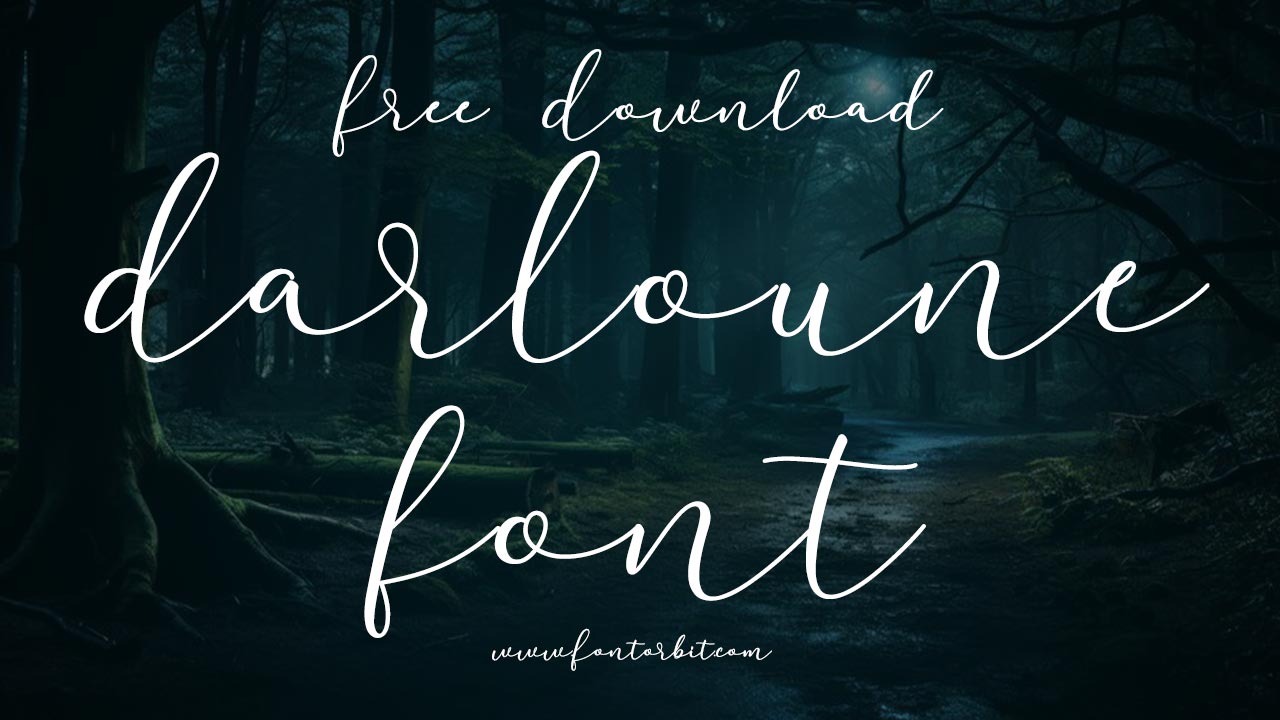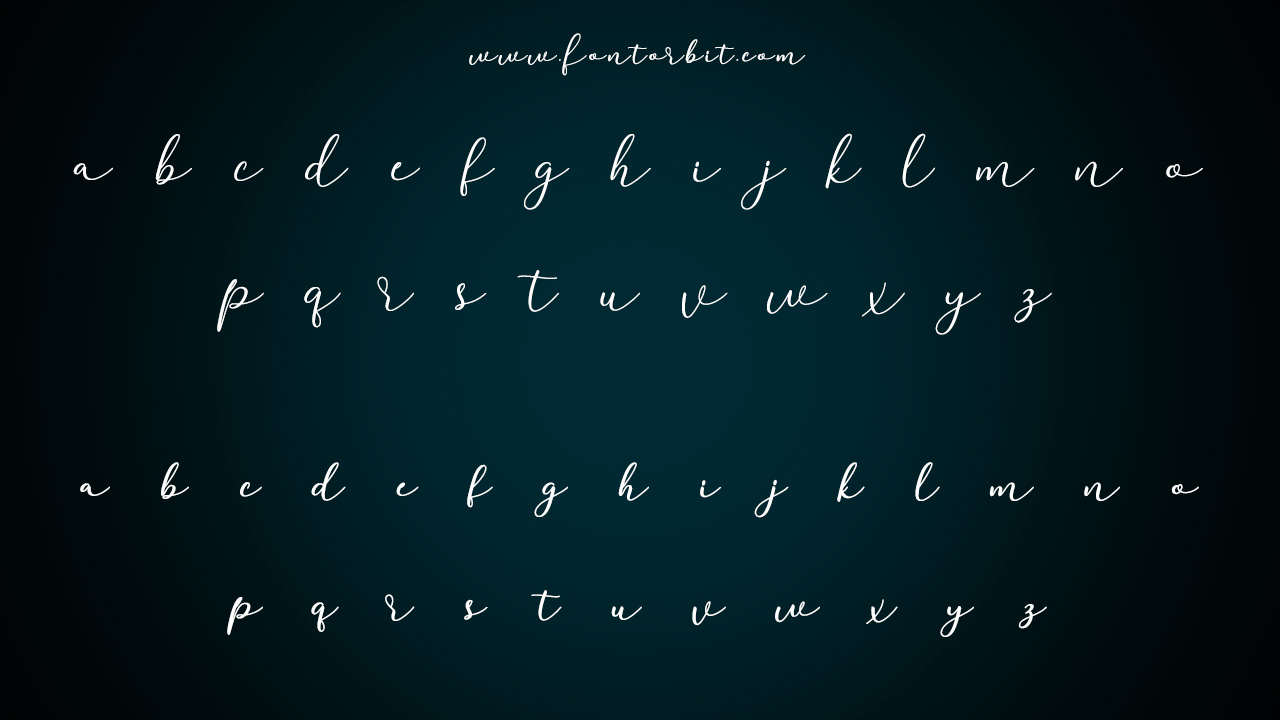
Darloune Font is an elegant and romantic handwritten typeface designed by the renowned WDfont studio. Released in 1998, this font has a light and flowing style that makes it perfect for sophisticated and artistic designs.
Darloune Font boasts a beautiful handwritten style with alternate characters, swashes, and stylistic sets, making it a versatile choice for creative projects. Its characters are designed to evoke an elegant, handwritten feel that works well in various applications.
a. Darloune Regular
| Style: | Calligraphy |
Darloune Font’s romantic and flowing style is perfect for designs that call for an elegant and personal touch. Its graceful appearance makes it ideal for a wide range of creative projects where sophistication and delicacy are desired.
Darloune Font is often used in settings where elegance and romance are key. Its intricate alternates and swashes add a refined and personalized feel to any design, making it a popular choice for designers looking to create an enchanting aesthetic.
Darloune Font brings a romantic and artistic feel to any design with its handwritten calligraphic style. While it does not replicate any specific historical script, it perfectly captures an intimate and delicate aesthetic.
Pair Darloune Font with clean, modern typography or minimalist design elements to create an elegant contrast that highlights its intricate details.
4.What Type Of Font Is Darloune Font?
Darloune Font is a handwritten calligraphy typeface, known for its flowing, delicate strokes and OpenType features that make it ideal for elegant and sophisticated designs.